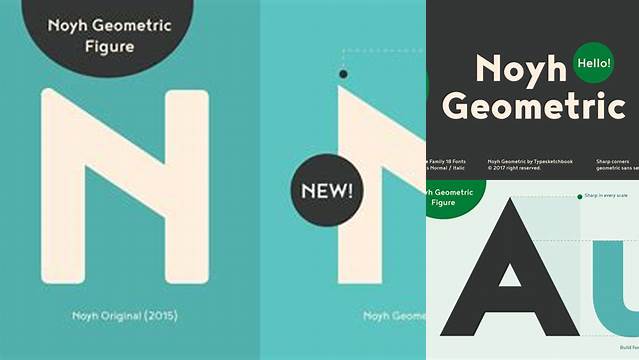
Discovering the Noyh Geometric Regular Font: Your Design Game Changer
Hey everyone! Today, we're diving deep into the fantastic world of the Noyh Geometric Regular Font. If you're a designer, a hobbyist, or just someone who appreciates beautiful typography, you've likely come across the need for a versatile, modern, and impactful typeface. Well, guys, the Noyh Geometric Regular Font often fits that bill perfectly. This isn't just another font; it's a design tool that can seriously elevate your projects, giving them a clean, contemporary, and professional edge. What makes it so special, you ask? Its foundation in pure geometric shapes. Think perfect circles, sharp squares, and crisp triangles all meticulously crafted to form a cohesive and highly readable alphabet. This commitment to geometric precision is what gives Noyh its distinct modern aesthetic, making it incredibly appealing to a wide range of designers across various disciplines. From branding to web design, and from print to digital media, Noyh offers a unique blend of simplicity and sophistication. Its straightforward letterforms mean it's not overly ornate, allowing the content to shine while still conveying a strong sense of style and purpose. When you choose Noyh, you're not just picking a font; you're selecting a statement piece that communicates clarity, efficiency, and forward-thinking design. It’s particularly popular for its legibility, even at smaller sizes, which is a crucial factor in today's multi-device world. Designers flock to it because it provides a reliable and stylish base for countless creative endeavors. It manages to be both striking and unobtrusive, a tricky balance to achieve in typography. Imagine using it for a tech startup's logo – the geometric precision perfectly reflects innovation and engineering. Or perhaps for an editorial layout in a design magazine, where its clean lines ensure readability and a sleek visual flow. The appeal of Noyh isn't just skin deep; it's about the fundamental principles of good design translated into letterforms. It’s clean, it’s modern, and it’s incredibly adaptable, making it a true game-changer for anyone looking to make their designs pop with an understated elegance. So, buckle up, because we're going to explore how to get your hands on this gem and how to use it to its fullest potential. Trust me, incorporating the Noyh Geometric Regular Font into your workflow could be one of the best design decisions you make this year. It's truly a versatile workhorse that brings a touch of class and modern precision to any design brief you might tackle. Get ready to transform your typography game, because Noyh is here to help you do just that, with style and substance in equal measure. Its reputation among the design community speaks volumes about its quality and efficacy. It's a font that doesn't just look good, it performs exceptionally well under various design constraints, consistently delivering professional and polished results. This makes it an invaluable asset for any designer, regardless of their experience level, who is committed to producing high-quality, contemporary visual communications. Once you start using Noyh, you’ll quickly understand why it has garnered such a loyal following and why it continues to be a go-to choice for so many cutting-edge projects. Its ability to convey a sense of modernism without sacrificing clarity is truly remarkable and a testament to its thoughtful design.
What Makes a Font "Geometric" Anyway, Guys?
So, you keep hearing about Noyh Geometric Regular Font and its geometric nature, but what does that actually mean, guys? Let's break it down in a way that makes sense. When we talk about a font being "geometric," we're not just throwing around a fancy term; we're referring to its fundamental construction and the principles that guide its design. At its core, a geometric font is built using—you guessed it—basic geometric shapes: circles, squares, rectangles, and triangles. Instead of relying on calligraphic strokes or organic, humanist forms, these typefaces are meticulously constructed with precision and mathematical regularity. Imagine taking a compass and a ruler and drawing each letter. That's the essence of a geometric font. For instance, the 'O' in a geometric typeface like Noyh will often be a perfect, unadulterated circle. The 'A' might feature perfectly straight lines forming its peak, and the counters (the enclosed spaces within letters like 'o' or 'P') will typically echo these pristine geometric forms. This approach gives geometric fonts a very clean, rational, and modern appearance. They often feel very structured and engineered, which is why they are incredibly popular in industries that value precision, technology, and minimalism. Think about the Bauhaus movement in the early 20th century – a pivotal period in design history that heavily embraced geometric forms and functionality. Many iconic geometric typefaces, like Futura, emerged from this era, carrying forward the philosophy that form should follow function and that beauty could be found in simplicity and mathematical harmony. The Noyh Geometric Regular Font carries this legacy forward, offering a contemporary take on these classic principles. Its characters are stripped down to their essential forms, removing any unnecessary embellishments. This makes them highly legible and gives them a timeless quality that doesn't easily go out of style. The consistency in stroke width, the uniform curves, and the balanced spacing are all hallmarks of a well-executed geometric font. This design philosophy results in a typeface that feels inherently stable and trustworthy, making it an excellent choice for branding, headlines, and any context where you want to convey a sense of modernity and clarity. It's about visual efficiency and a commitment to order. So, when you're looking at Noyh, you're seeing letters that are not just drawn but constructed with a keen eye for architectural precision. It's less about the hand of the artist and more about the intellect of the designer, using fundamental shapes to create a system that is both aesthetically pleasing and functionally superior. This emphasis on underlying geometric structures is what truly sets fonts like Noyh apart and gives them their distinctive, enduring appeal in the fast-paced world of graphic design. Understanding this core principle helps you appreciate the subtle power and inherent beauty of the Noyh Geometric Regular Font. It’s a design choice that speaks volumes without ever having to shout, conveying elegance and intelligence through its very form and structure.
Why Noyh Geometric Regular Font is a Must-Have in Your Font Arsenal
Let me tell you, guys, the Noyh Geometric Regular Font isn't just a pretty face; it's a powerhouse that deserves a prime spot in every designer's font arsenal. Seriously, if you're looking to elevate your work, Noyh brings a combination of versatility, modern aesthetic, and undeniable readability that's hard to beat. Its inherent geometric structure, built on clean lines and precise forms, makes it incredibly adaptable across a dizzying array of design contexts. Whether you're crafting a sleek website, designing a cutting-edge mobile app interface, developing a compelling brand identity, or laying out a professional print magazine, Noyh simply fits. This versatility is a huge time-saver because you don't have to hunt for a new font for every project; Noyh often serves as a reliable and stylish go-to option. One of the primary reasons for its 'must-have' status is its modern aesthetic. We live in an age where clean, minimalist design often reigns supreme. Noyh, with its contemporary feel and uncluttered letterforms, perfectly aligns with this trend. It conveys sophistication without being overly ornate, suggesting efficiency, innovation, and a forward-thinking mindset. This makes it particularly effective for industries like tech, architecture, fashion, and any brand aiming to project a sleek, up-to-date image. It’s the kind of font that instantly makes a design feel current and fresh, without being trendy to the point of quickly becoming dated. Moreover, the readability of the Noyh Geometric Regular Font is genuinely top-notch. Despite its strong stylistic presence, it's incredibly easy on the eyes. The clear, open counters and well-defined character shapes ensure that text set in Noyh is legible even at smaller sizes or in less-than-ideal viewing conditions. This is a critical factor, especially in UI/UX design, where users need to process information quickly and comfortably across various devices. Poor readability can frustrate users and undermine even the most beautiful design, but Noyh consistently delivers a smooth reading experience. Its geometric precision contributes significantly to this clarity, preventing ambiguity between similar-looking characters. For example, a crisp 'c' won't be mistaken for an 'e' due to muddy strokes. Beyond its aesthetic and functional merits, Noyh has a profound impact on branding and UI/UX design. In branding, it helps create strong, memorable, and consistent visual identities. A logo set in Noyh immediately communicates modernity and reliability. For user interfaces, it contributes to a seamless user experience, guiding the eye and ensuring that navigation, buttons, and content are all effortlessly understood. It doesn't just look good; it actively improves the user's interaction with the product. In essence, guys, the Noyh Geometric Regular Font isn't just another font to download; it's an investment in your design quality. It empowers you to create visually appealing, highly functional, and impactful designs that resonate with a contemporary audience. So, if you're serious about taking your design game to the next level, make sure Noyh finds its way into your essential font toolkit. You'll thank yourself for it when your projects start looking sharper, feeling more professional, and communicating their message with effortless clarity. It’s a tool that consistently delivers, making it an indispensable asset for anyone committed to excellence in their visual communication efforts across all platforms and mediums.